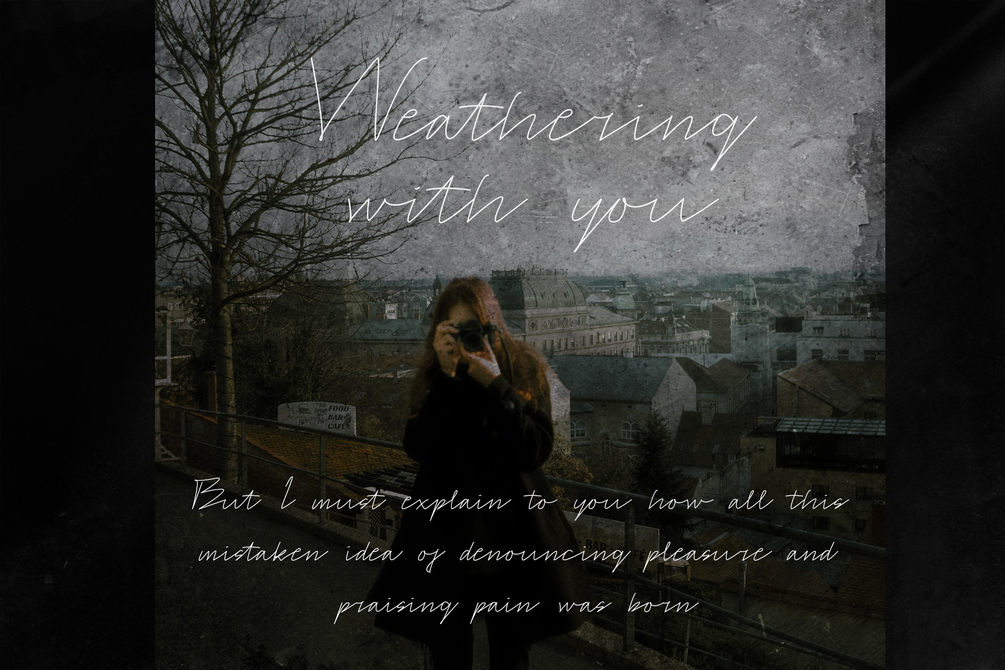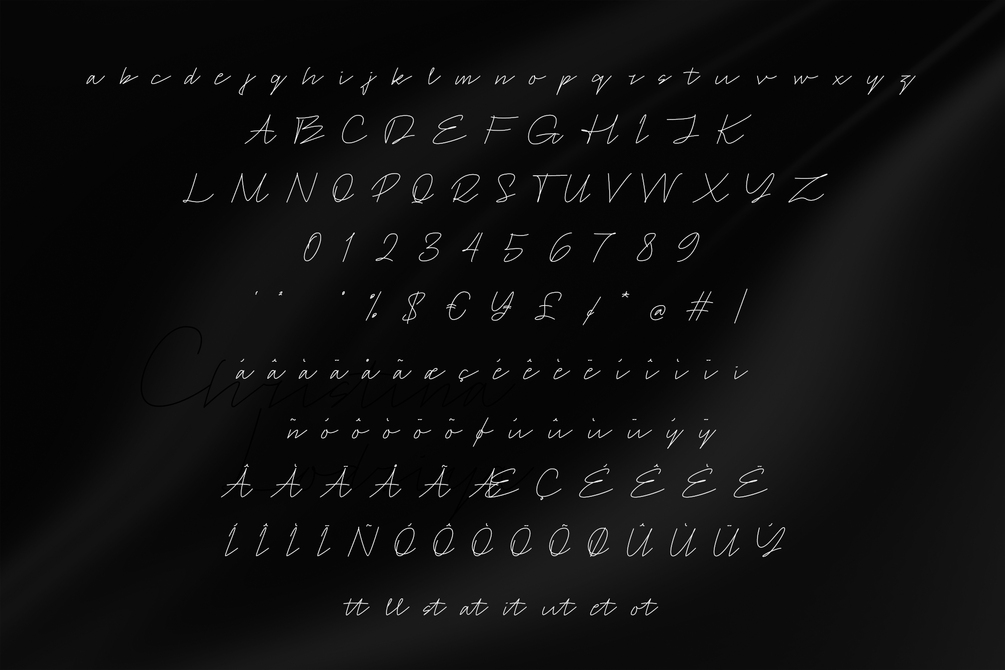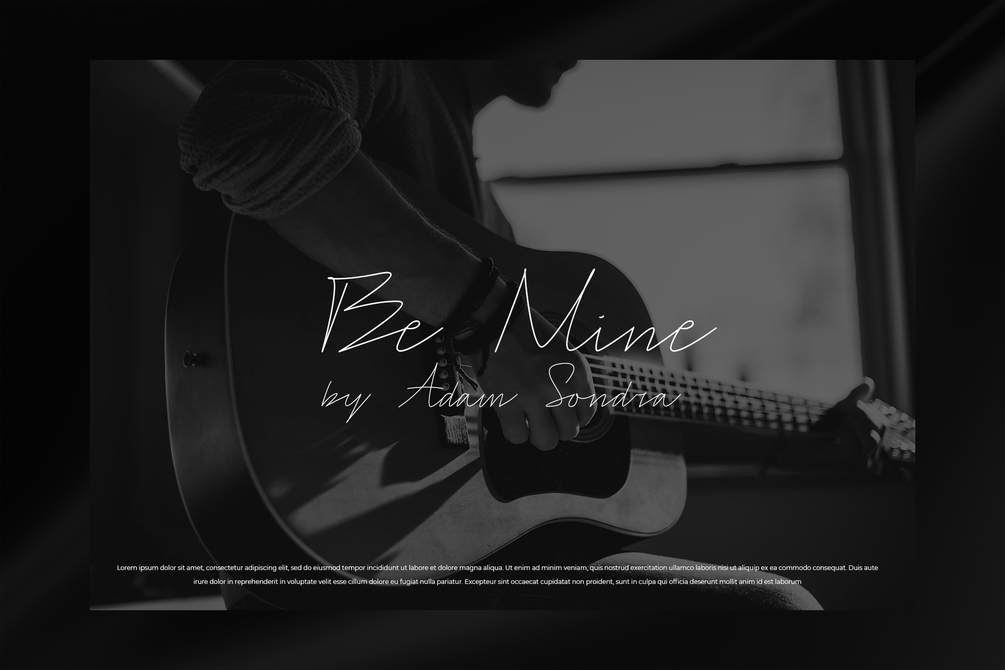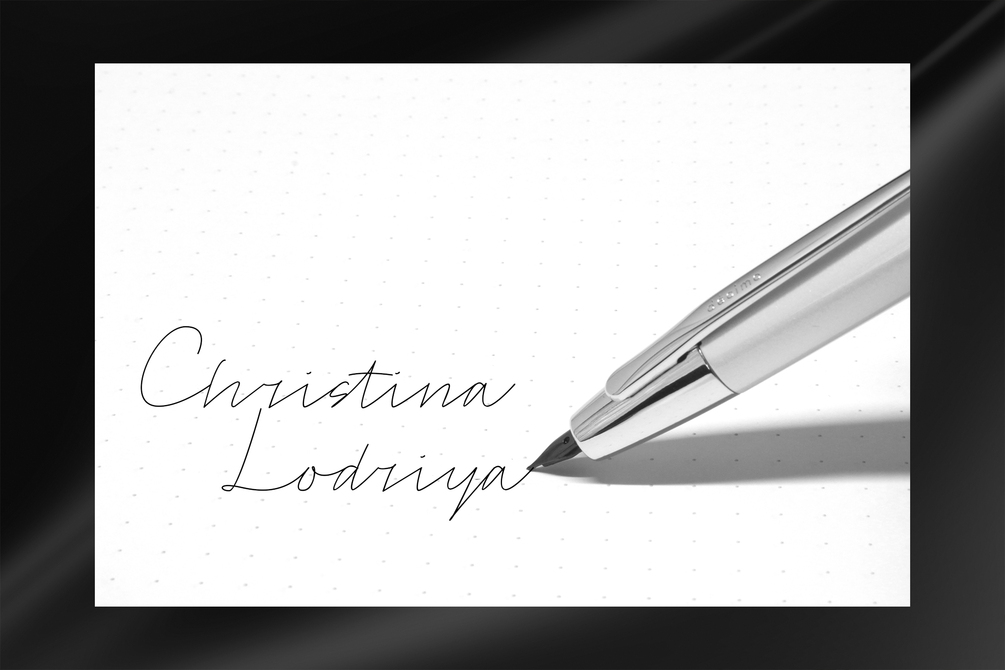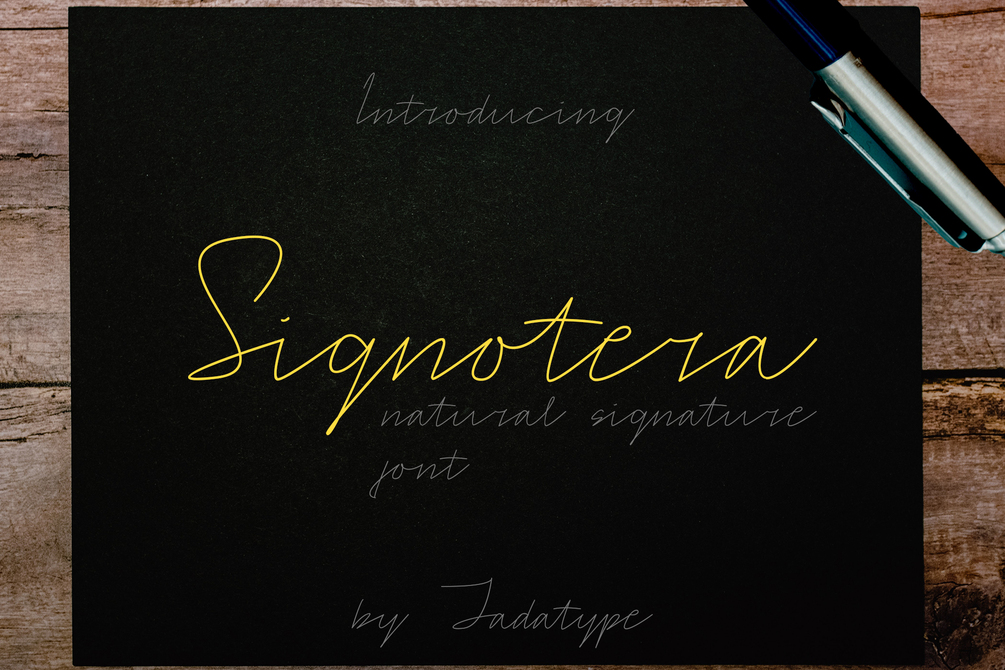
Signotera Font
Signotera is a font with a natural monoline signature. suitable for photography, social media, music cover, branding, products, handwritten, and so on. contains standard English letters, numbers, punctuation, and several accents that support multilingualism.